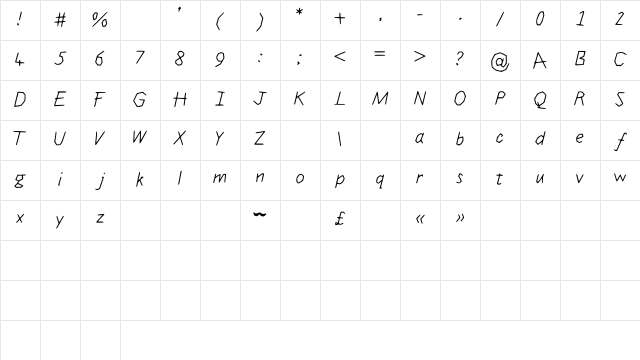
JigglyDUO Medium Free Font
JigglyDUO Medium
Design Context for JigglyDUO
JigglyDUO is a composed and adaptable typeface that performs quietly and consistently across a wide range of design contexts.
Pro Tip: Use JigglyDUO in both headline and body roles to test its range before committing to a single application.